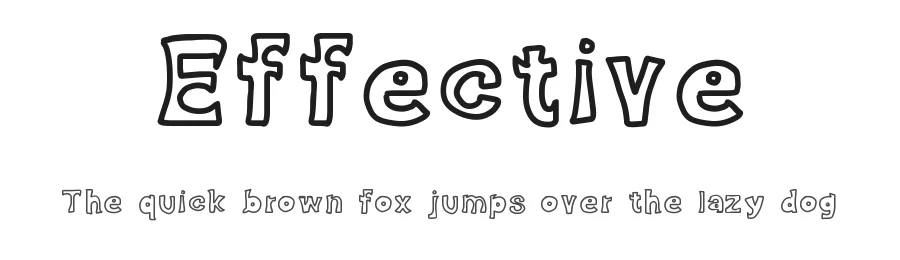
About Area Font
Area is a decorative font that brings ornamental character to headline and display work. Designed by Shellmoonsite, this Regular-weight typeface consists of 66 glyphs and supports 89+ Latin-based languages, making it accessible for international design projects. A lean character set keeps the font focused on essentials without ornamental excess.
The fancy aesthetic of Area makes it especially suitable for wedding invitation suites where an elegant, stylized presentation feels right, social media graphics and promotional banners that need strong visual presence to cut through the feed, creative poster designs announcing events or special occasions, and handmade craft projects such as vinyl decals, embroidered designs, or scrapbooking layouts. Its decorative character works best when confined to short, impactful bursts of text rather than lengthy passages. The moderate glyph count avoids the overhead of rarely used alternates or swashes that can clutter a designer's workflow.
Area Font is a decorative font that shines as a display or heading face. Pair it with a clean sans-serif or serif font for body text β the contrast creates a clear hierarchy while the two styles stay balanced and easy to read.